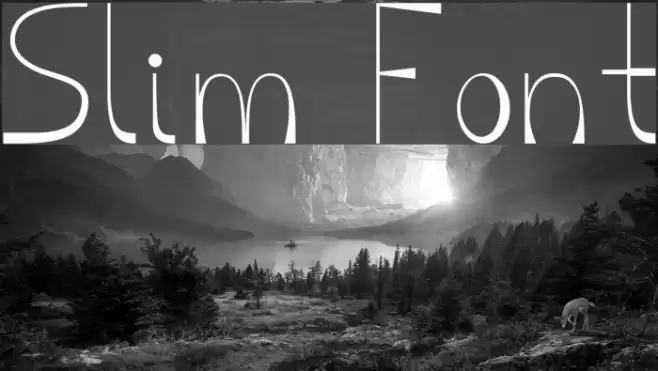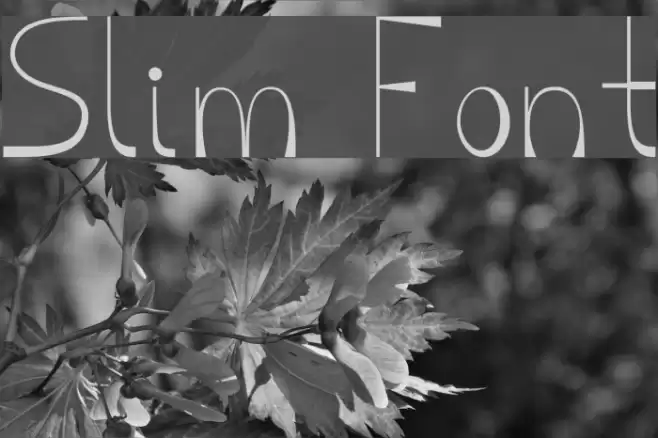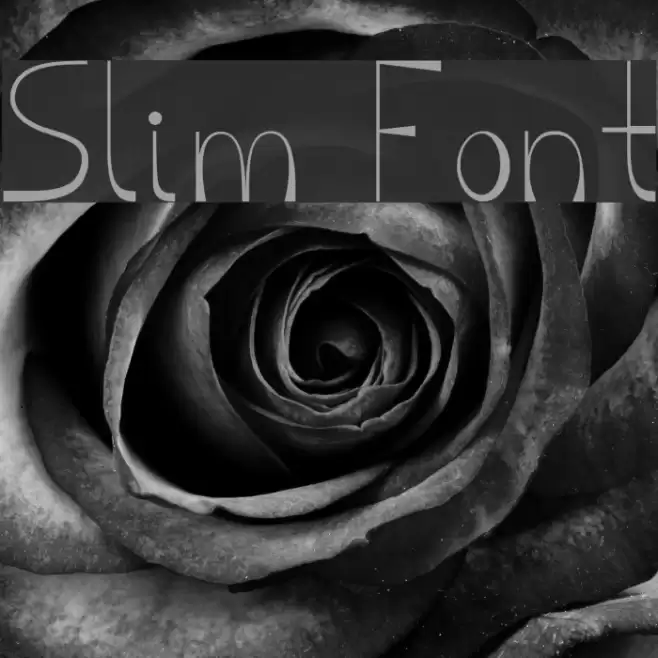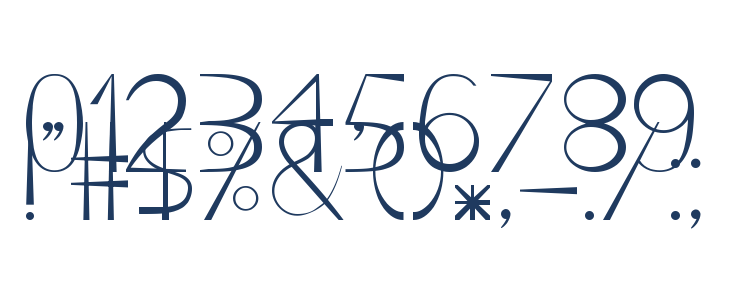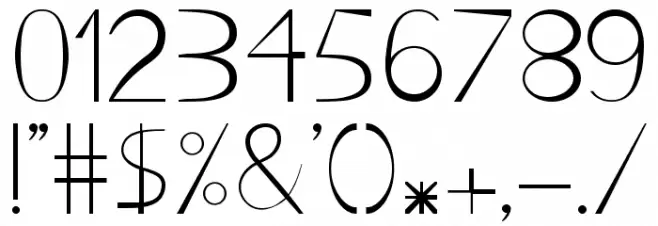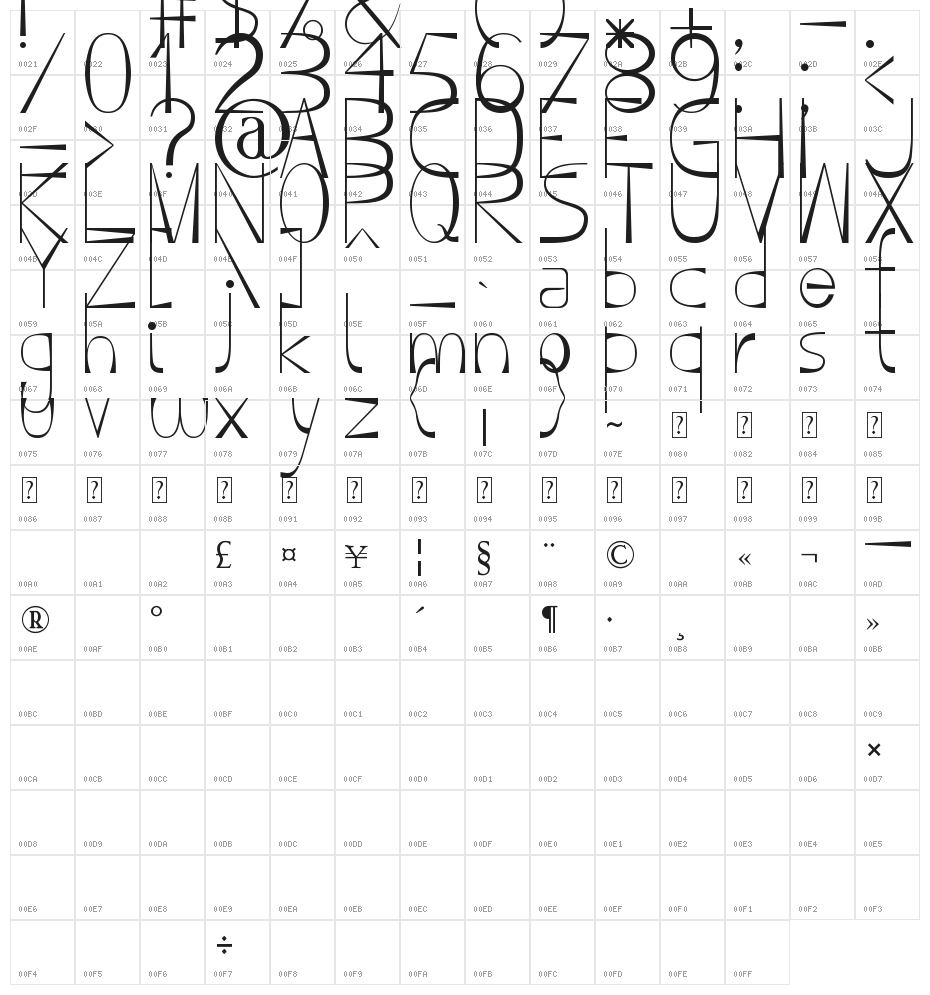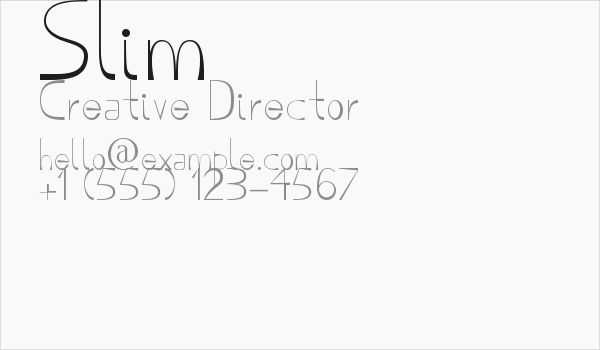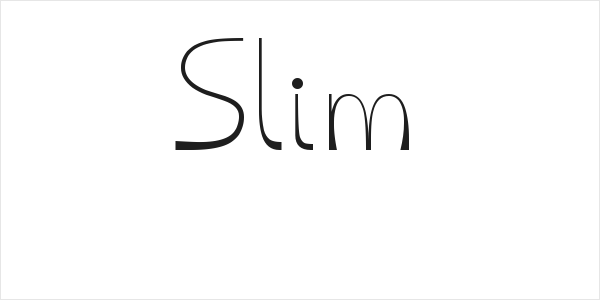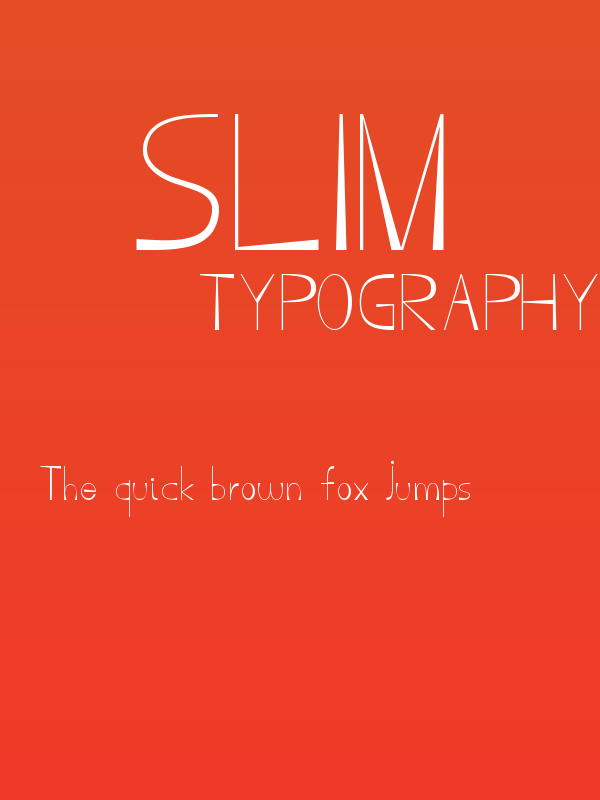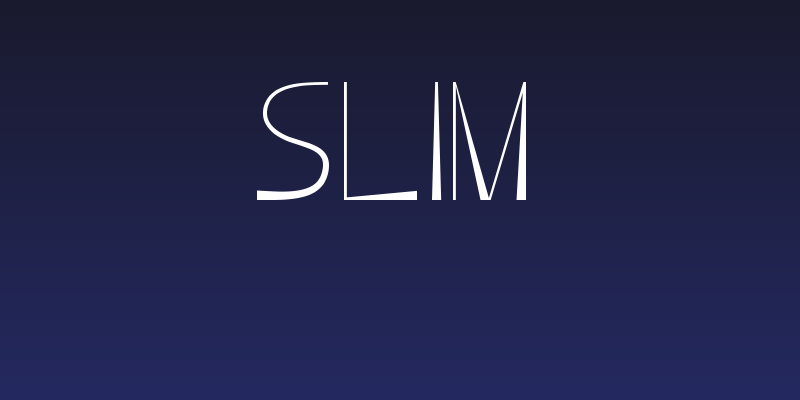
Slim Font
Slim Description
This font features a modern and sleek design with a distinctively slim and elongated appearance. The characters are crafted with a minimalist approach, emphasizing clean lines and geometric shapes. The uppercase letters exhibit a uniform height with subtle variations in stroke width, while the lowercase letters maintain a consistent flow with rounded edges. Numerals are designed to complement the overall aesthetic, offering clarity and readability. Special characters are integrated seamlessly, maintaining the font's cohesive style. This font's elegance and simplicity make it suitable for a variety of design applications.
A modern, slim font with clean lines and geometric shapes from Uncategorized fonts.
- Proposed Projects: Ideal for branding, editorial design, fashion magazines, and minimalist posters.